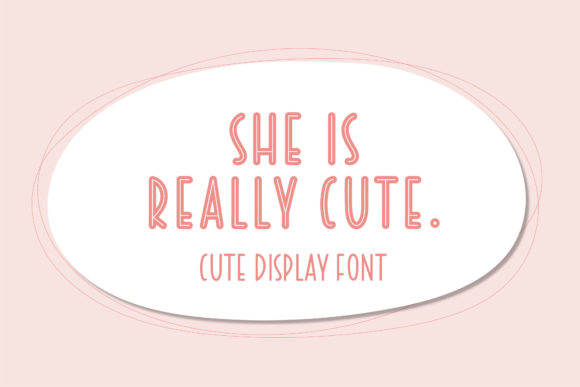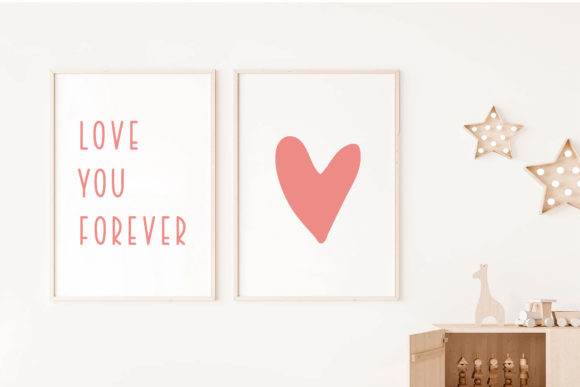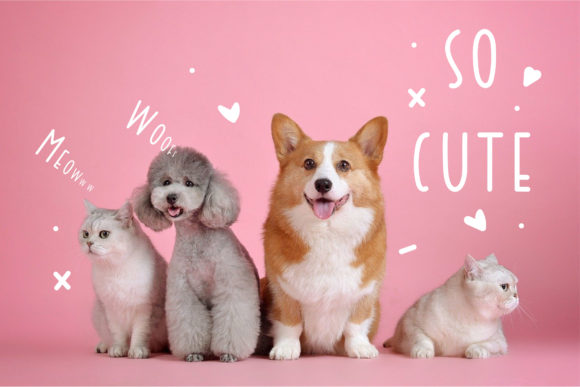
Introduction to Cute Cute Font
Cute Cute is a simple and jolly display font.
Whatever the topic, this font will be a wonderful asset to your font library, as it has the potential to enhance any creation .